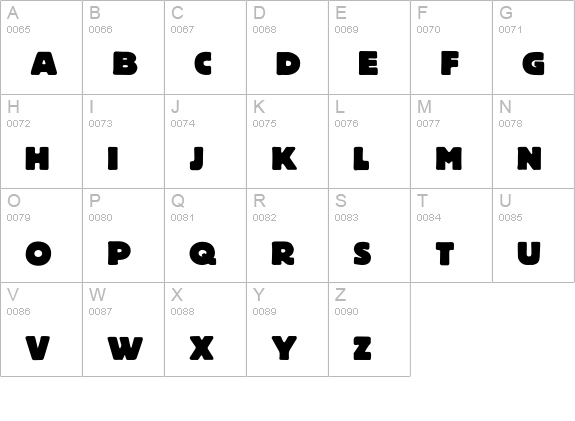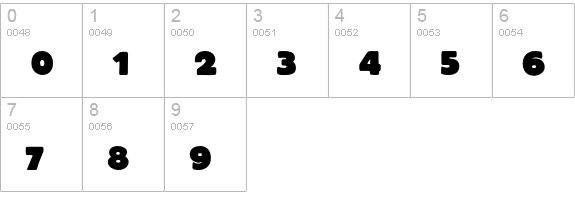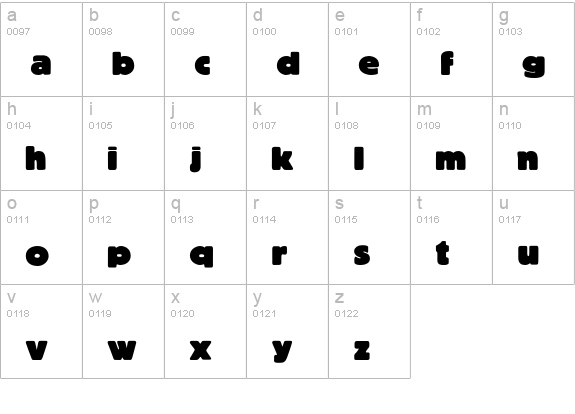
Schwere Font Details
Schwere font is a bold and powerful display typeface that exudes strength and gravitas. With its thick, heavy strokes and robust letterforms, this font commands attention and makes a statement. It is the perfect choice for headlines, titles, logos, and any design project that requires a bold and impactful typography. The Schwere font is characterized by its strong and confident aesthetic. Each letter has been meticulously crafted to embody a sense of weight and solidity, making it stand out on any medium. Whether used in print or digital designs, this font demands attention and leaves a lasting impression. But what makes Schwere font even more impressive is that it is free to download at FontsMarket.com. This means that designers and creatives can easily access and utilize this striking typeface without any cost. It is a valuable resource for those who want to add a touch of boldness and strength to their designs without breaking the bank. Moreover, the freely available Schwere font is versatile and adaptable. It can be used in various design contexts, from branding and advertising to editorial layouts and web designs. Its bold and commanding presence ensures that the message or content it represents will be conveyed with impact and authority. In conclusion, Schwere font is a bold and powerful typeface that is freely available to download at FontsMarket.com. Its strong and confident aesthetic, combined with its versatility and accessibility, makes it an excellent choice for designers seeking to make a bold statement in their projects.